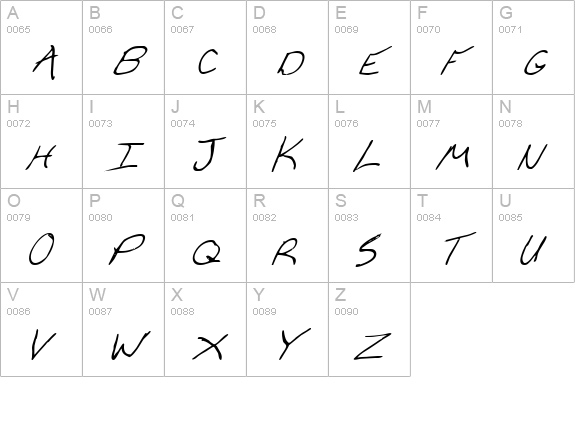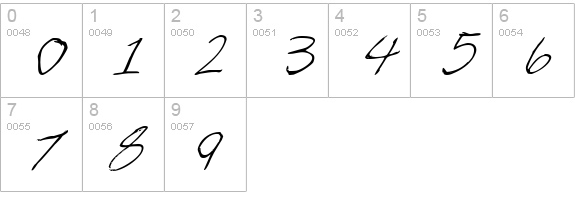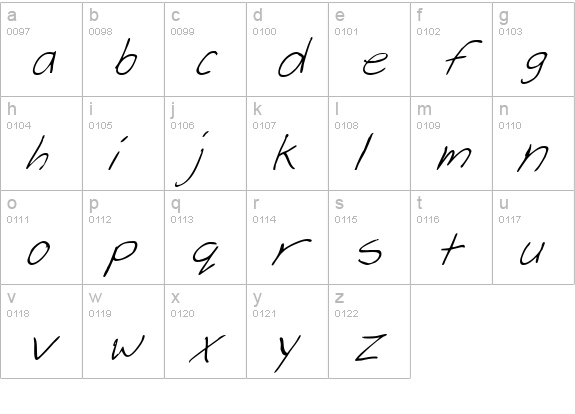
Cheyenne Hand Italic Font Details
Cheyenne Hand Italic is a distinctive, italic variant in the Cheyenne typeface family \xE2\x80\x94 well suited to design and typography projects.
Cheyenne Hand Italic font exudes elegance and sophistication with its unique hand-drawn style. The fluid strokes and delicate curves add a touch of grace to any design project. Perfect for adding a personal and artistic flair to your creations, Cheyenne Hand Italic is a versatile font that can be used for a variety of purposes, from invitations to branding. The free-spirited nature of this font makes it a standout choice for those looking to make a statement with their typography. Whether you're designing a wedding invitation or creating a logo for your business, Cheyenne Hand Italic will help you stand out from the crowd. Best of all, Cheyenne Hand Italic is freely available to download at FontsMarket.com. So, why wait? Add this beautiful font to your collection today and let your creativity flow with Cheyenne Hand Italic.